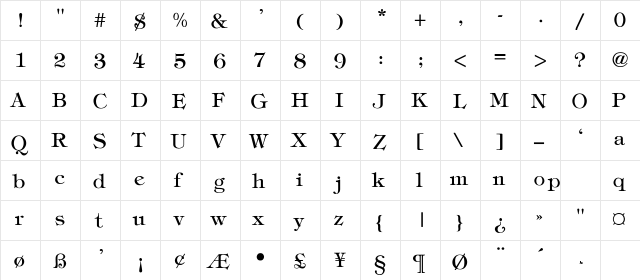
Fatima Lite Regular Regular
Design Context for Fatima Lite Regular Typeface
Fatima Lite Regular takes a measured approach to typography — its balanced proportions and neutral character make it a reliable workhorse for both digital and print work.